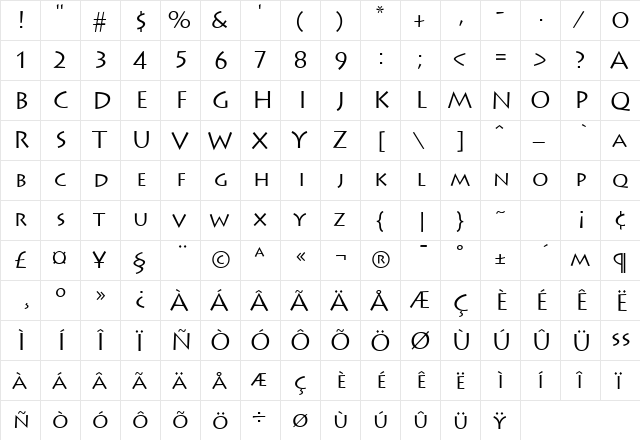
LeeToscanini3 LightSH
Design Context for LeeToscanini3 Typeface
LeeToscanini3 is a composed and adaptable typeface that performs quietly and consistently across a wide range of design contexts. Its slender proportions lend an understated elegance to any composition.